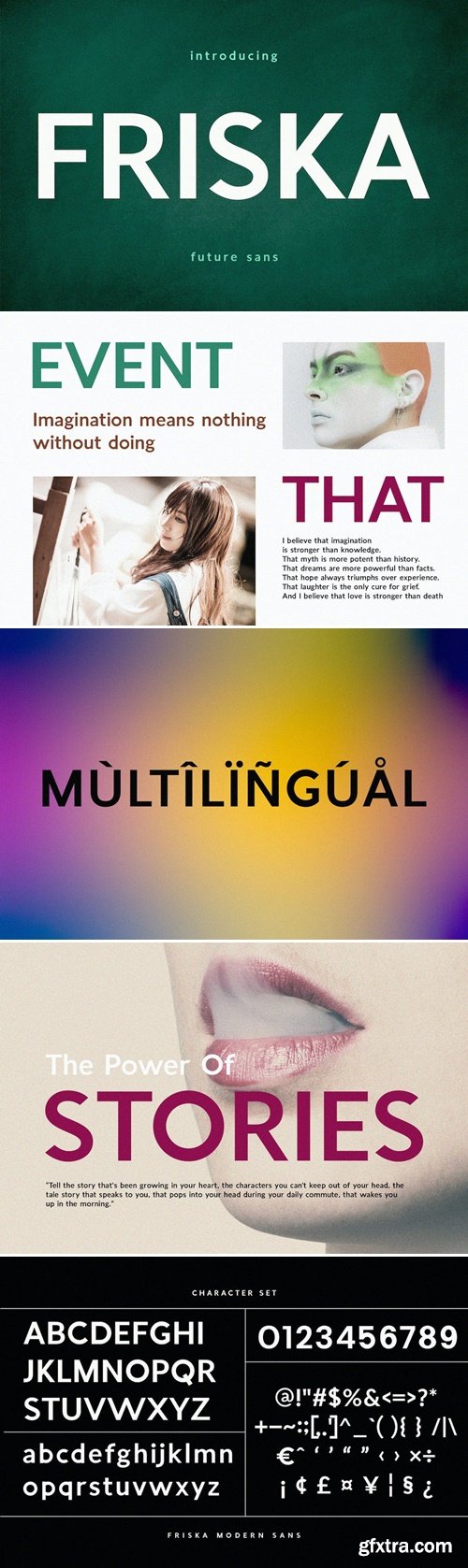
Friska Font
Introducing the new Friska Modern Sans-Serif. Friska is a classy, modern sans font. This font is modern and elegant and works great for website, logos, magazines, social media. This font it's matched and ready to be used together for your next design! For those of you who need a touch of elegance, stylish, classy, chic and modernity for your designs, this font is made for you!